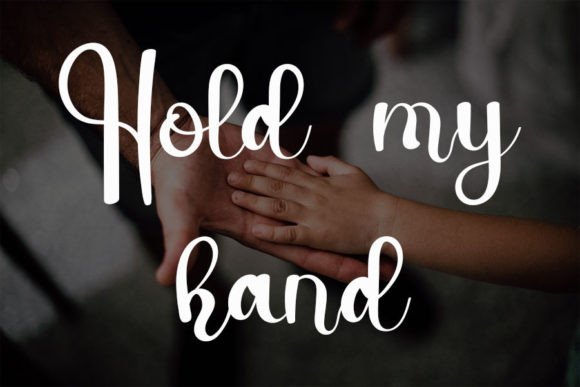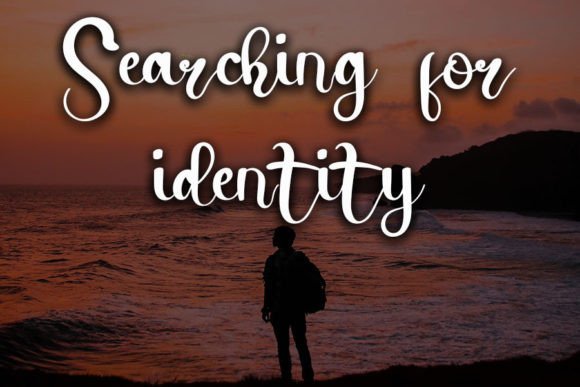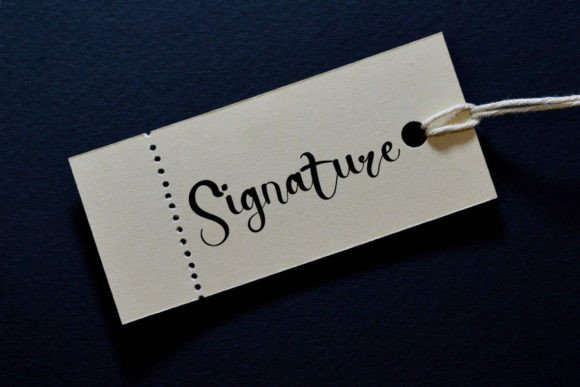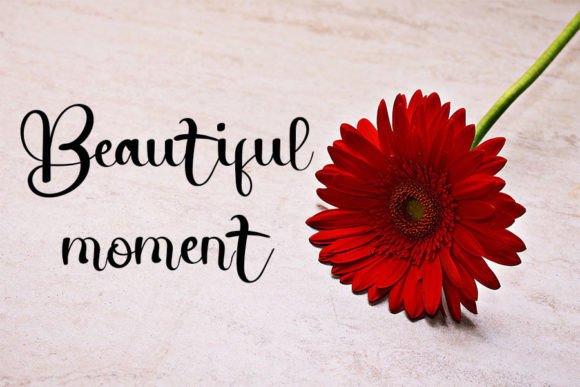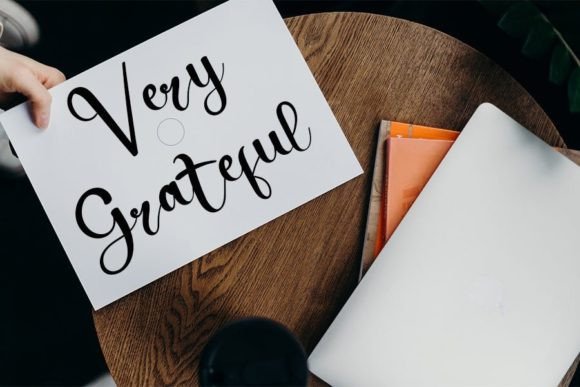
Coffee Break Font
About Coffee Break Font
**Coffee Break: A Colorful Handwritten Font with a Dash of Elegance**
Introducing **Coffee Break**, a vibrant handwritten font thoughtfully crafted to combine vivid colors with a touch of elegance. With its clean lines and a hint of quirkiness, this font is the perfect choice to add a unique personality to your creative projects.
**Coffee Break** shines with its colorful and lively characters, exuding a sense of liveliness and originality. Its versatility makes it an ideal fit for a wide range of applications, from logos and branding materials to social media posts and crafty DIY projects.
While **Coffee Break** emanates playfulness, it doesn’t compromise on elegance. The font maintains a level of sophistication with its meticulously designed letterforms, allowing your designs to strike a harmonious balance between whimsy and refinement.
For logos and branding, this font injects a burst of personality and color, helping your brand establish a memorable and distinctive identity. Its adaptability ensures it can complement various industries and design styles, making it an invaluable asset for businesses seeking a unique visual identity.
On social media platforms, **Coffee Break** ensures your posts are not only eye-catching but also engaging. It adds a touch of vibrancy to your content, helping it stand out in the digital realm and connect effectively with your audience.
Crafty DIY projects gain a new dimension with the inclusion of this font. Whether you’re creating handmade cards, personalized gifts, or other creative ventures, **Coffee Break** infuses them with charm and creativity.
In summary, **Coffee Break** is more than just a font; it’s a creative tool that brings a burst of color, elegance, and originality to your projects. Whether you’re designing for branding, social media, or crafting, choose **Coffee Break** to infuse your work with its unique personality and make a lasting impression. Embrace its vibrant and quirky charm, and let your creativity shine.